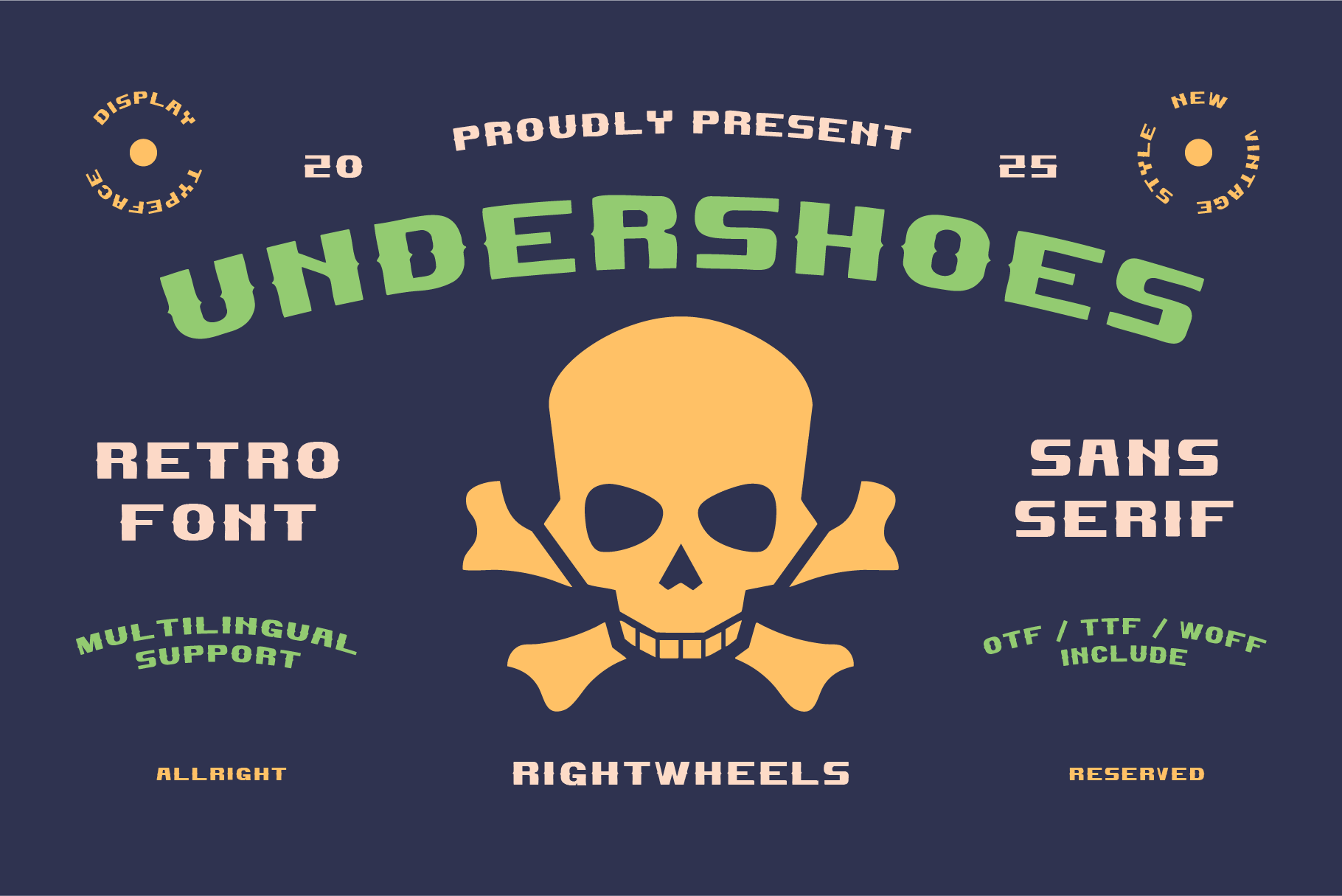
UNDERSHOES - Retro Display Font
Undershoes is a retro-inspired font designed with an all-caps concept. It blends a vintage aesthetic with bold, impactful letterforms, making it perfect for eye-catching designs. Its geometric shapes and clean lines evoke a sense of nostalgia, while maintaining a modern edge suitable for various creative projects.